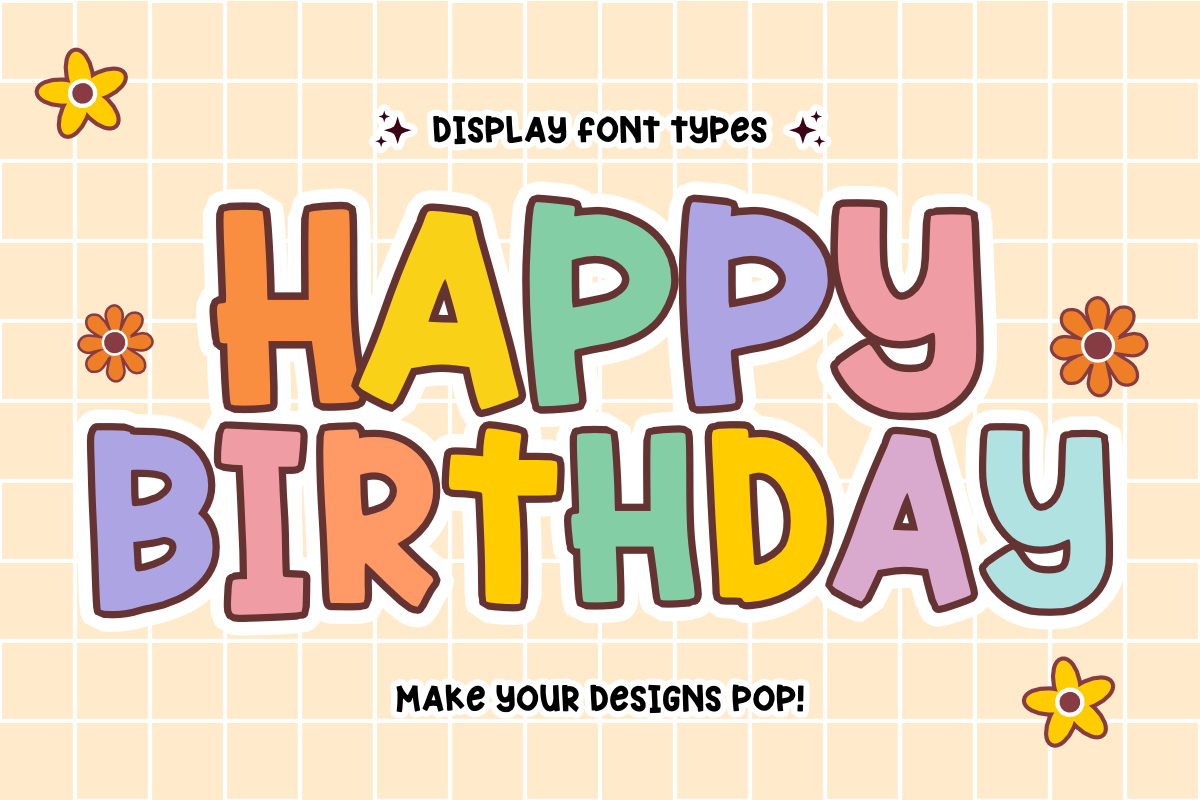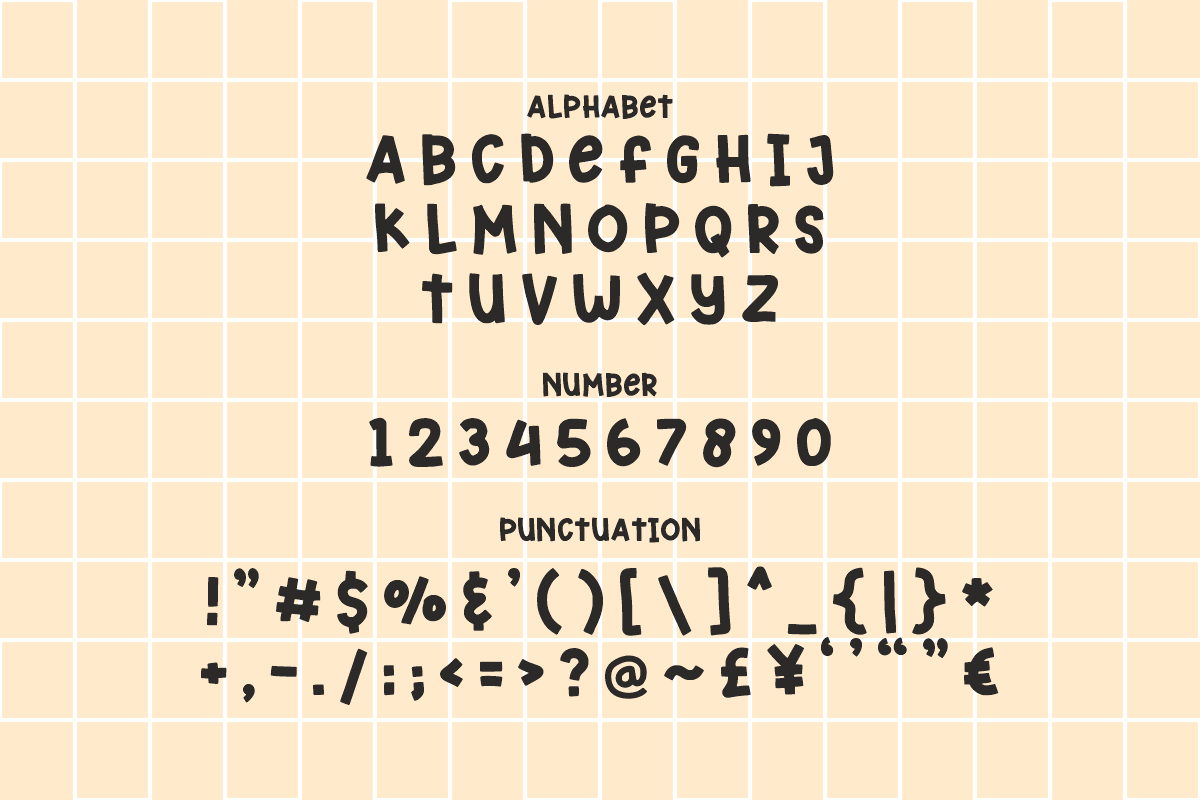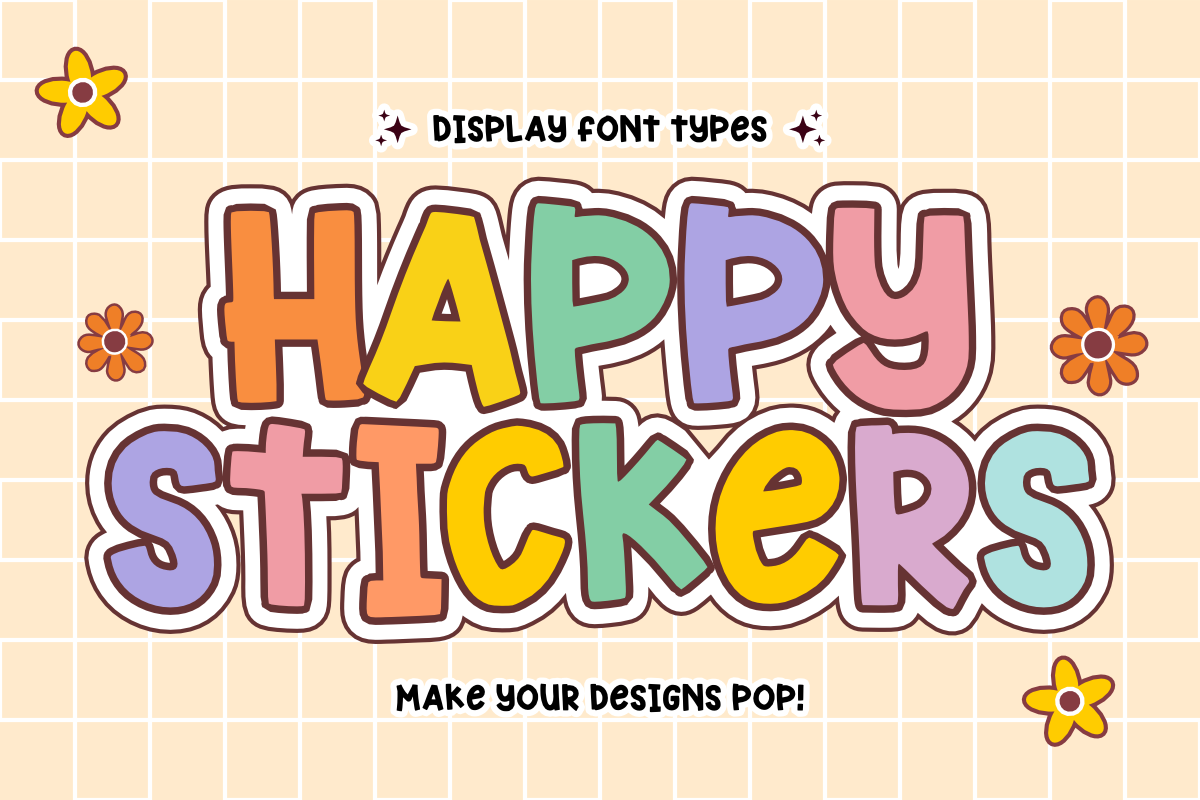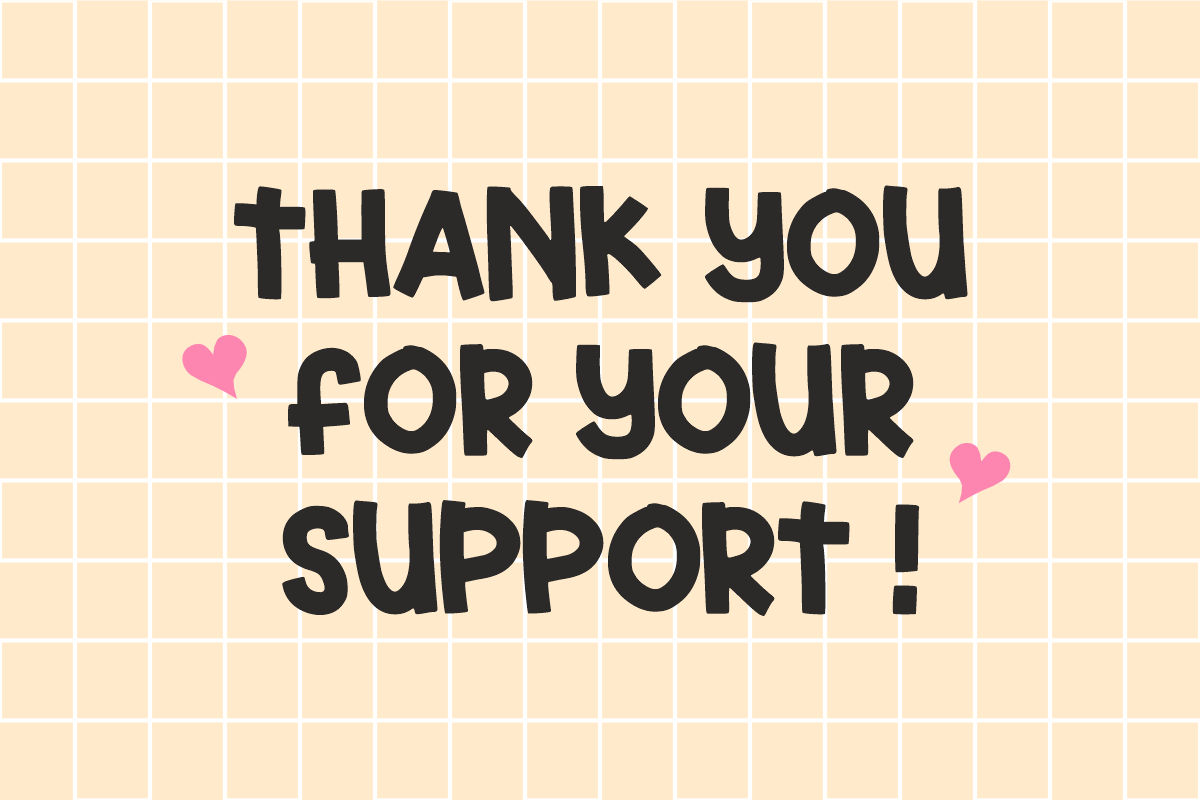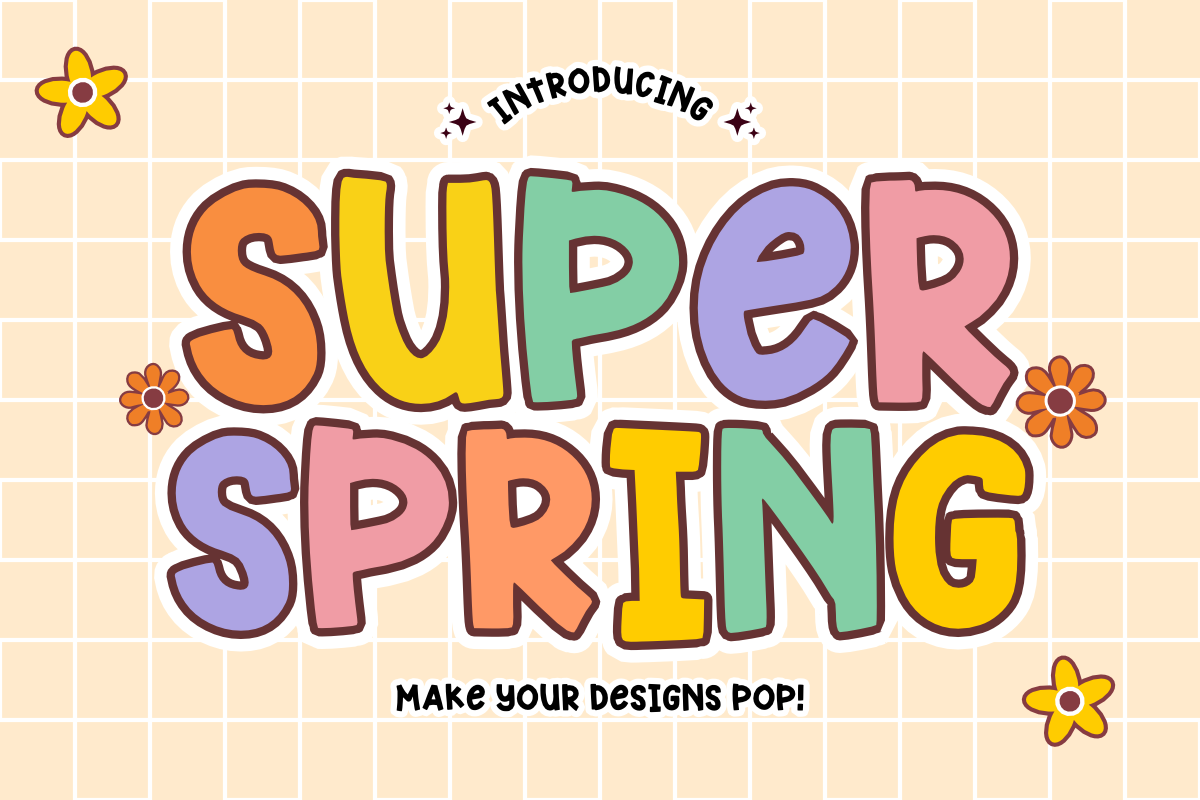
Super Spring - Retro Display Font
Super Spring - Retro Groovy Display Font
Bring ultimate retro vibes and playful energy to your projects with Super Spring! 🌸✨ Inspired by the iconic 60s and 70s groovy aesthetic, this bold, bubbly display font is designed to make your creative work instantly pop with joy and nostalgia.
Whether you're creating eye-catching stickers, trendy t-shirt designs, retro branding, or fun social media graphics, Super Spring is your go-to choice for instant good vibes. It's incredibly versatile, easy to use, and perfectly optimized for crafters and digital designers alike!
All-Caps Character Set (Fun, bold, and perfectly weighted uppercase letters)
Numbers & Basic Punctuation (Essential, simple symbols included)
Stickers, Patches, & Merch Design 🎒
Cricut & Silhouette Crafting Projects ✂️
Instagram & TikTok Social Media Graphics 📱
Kids' Products & Playful Branding 🧸
Groovy Poster & Flyer Headlines 🎨